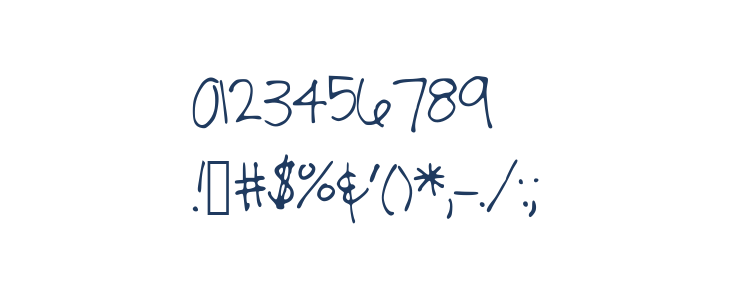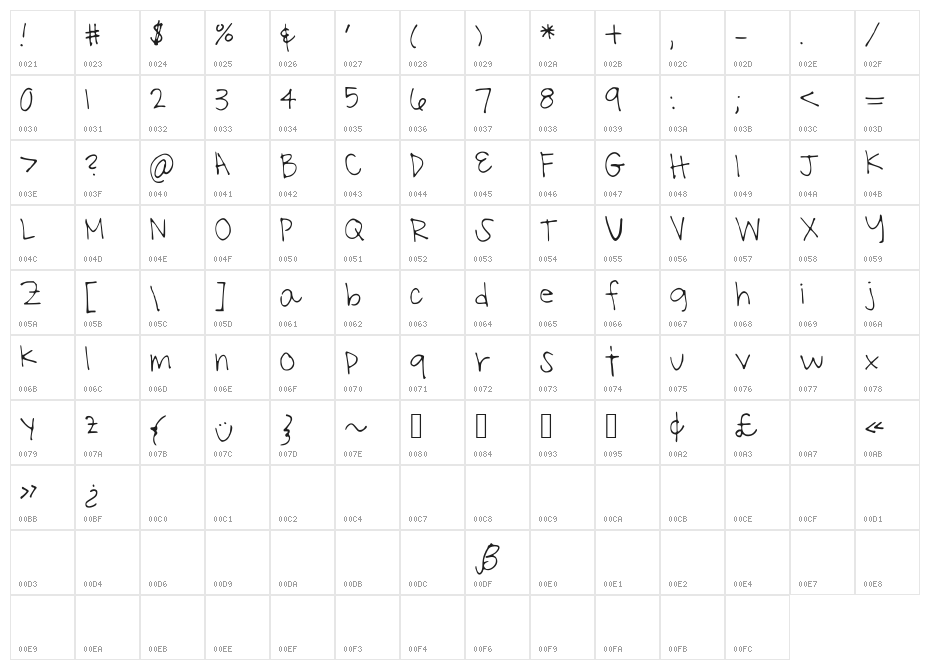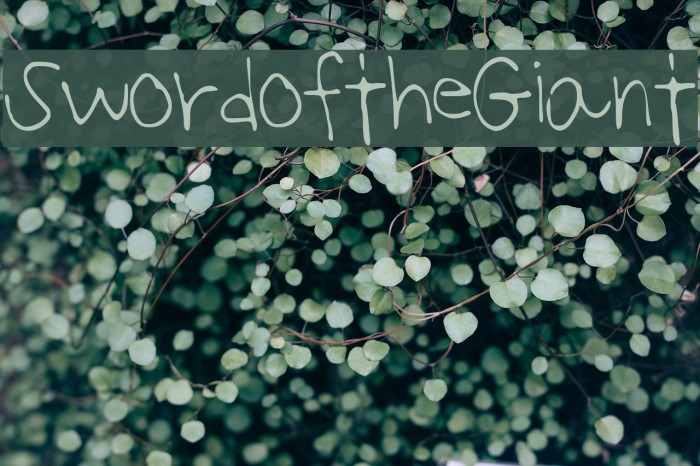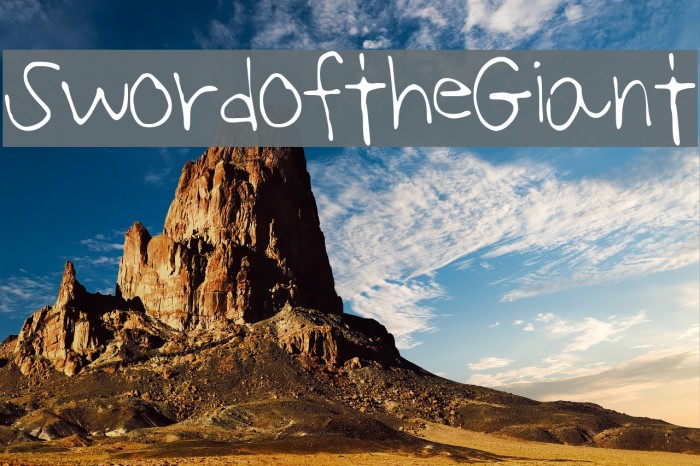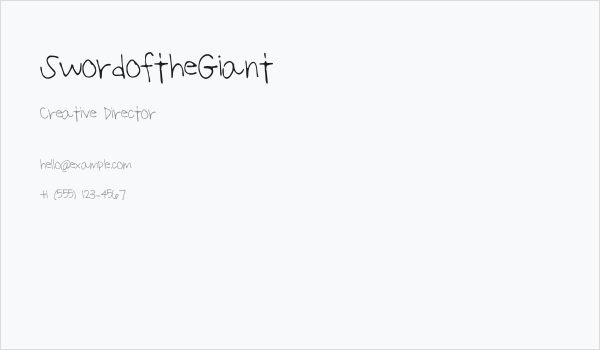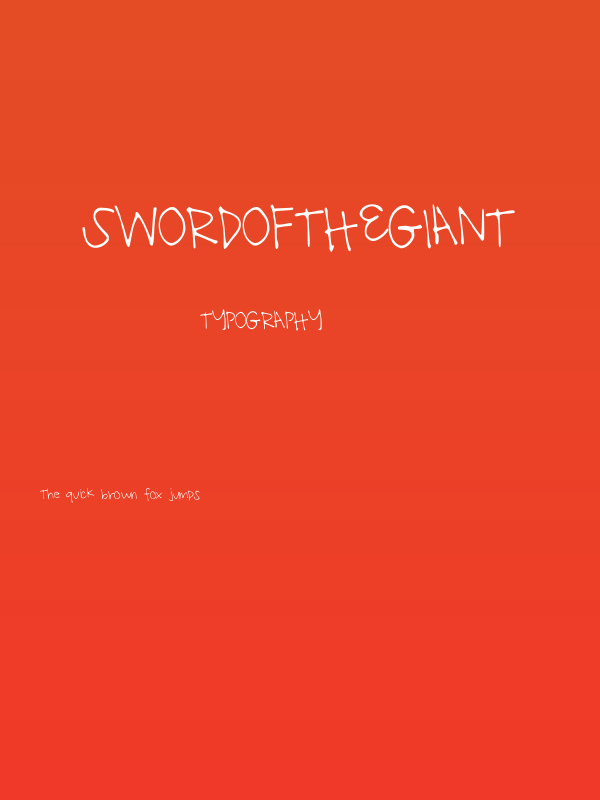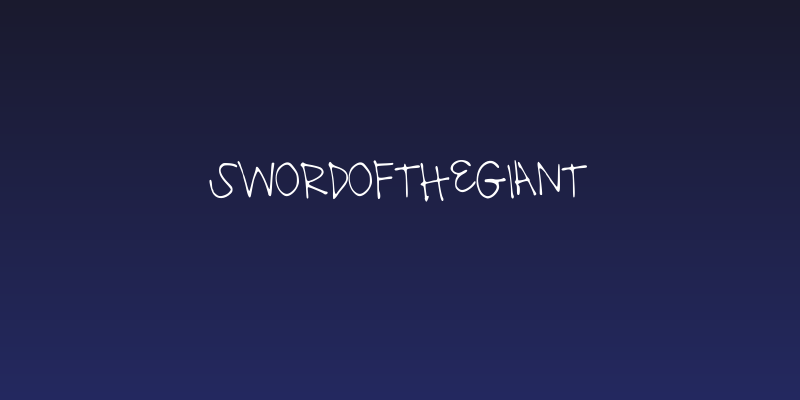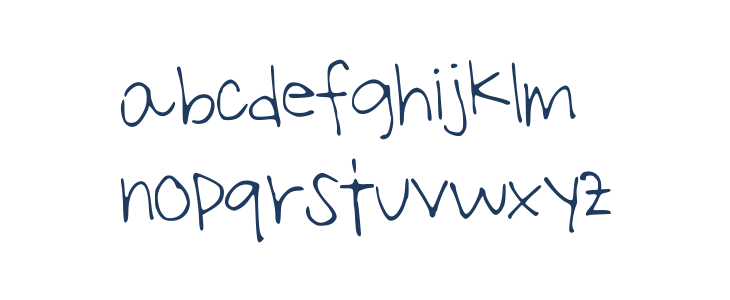
SwordoftheGiant Font
SwordoftheGiant Description
This font exhibits a playful and casual handwritten style, characterized by its irregular and organic letterforms. The strokes are uneven, giving it a natural and spontaneous appearance, reminiscent of a quick sketch or doodle. The uppercase and lowercase letters maintain a consistent style, with slightly exaggerated curves and angles that add to its informal charm. The numbers and special characters follow the same whimsical design, ensuring a cohesive look across all elements. This font's unique personality makes it stand out, offering a friendly and approachable vibe.
Overall StyleCasual, Playful
Use CaseHeadlines, Informal text, Creative projects
Proposed ProjectsIdeal for children's books, greeting cards, casual invitations, and playful branding projects.